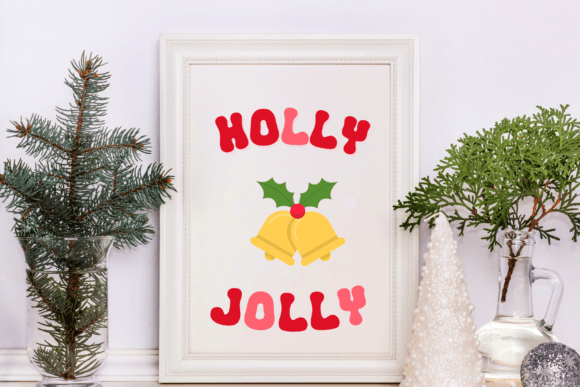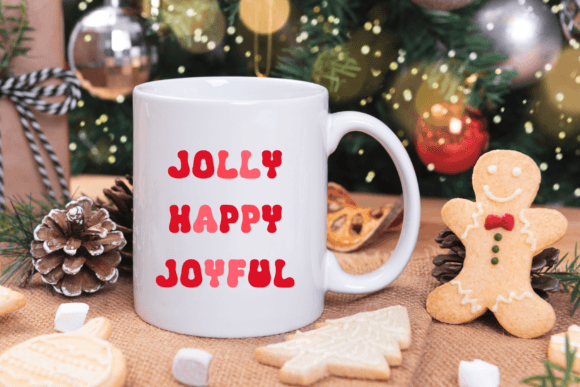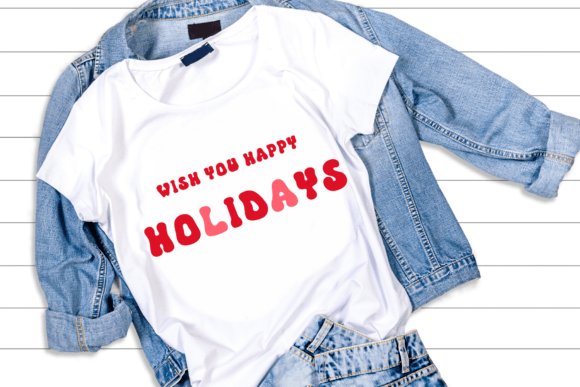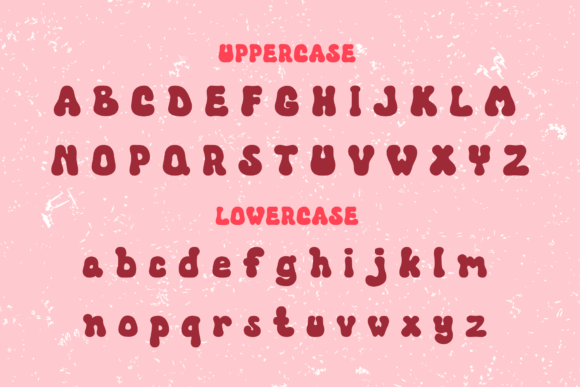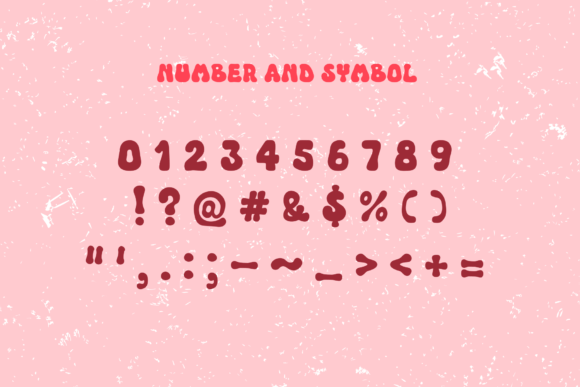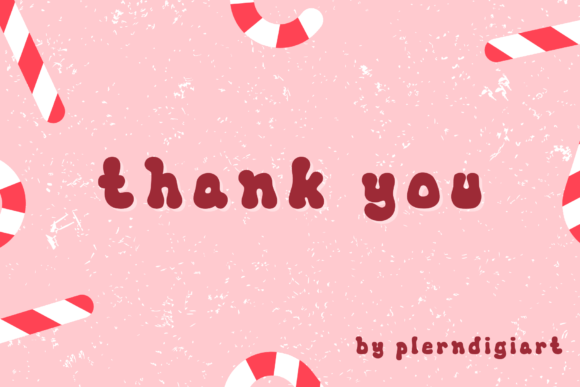
Introduction to Holidays Font
HOLIDAYS is a font that exudes adorable charm and is filled with delightful design elements.
It possesses a vibrant and irresistibly cute atmosphere, characterized by its simplicity and cuteness that is hard to resist This font is soft, gentle, and evokes feelings of warmth and love.
Key Features of Holidays Font